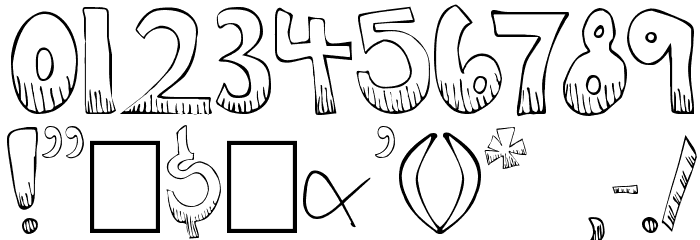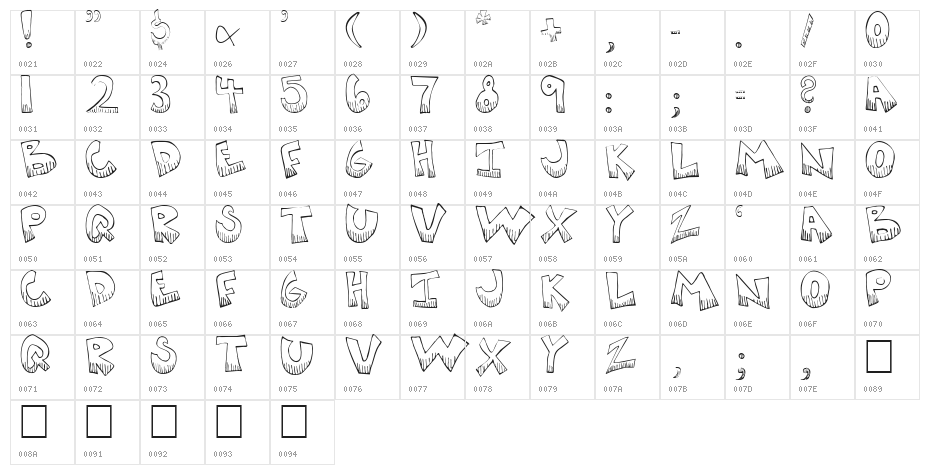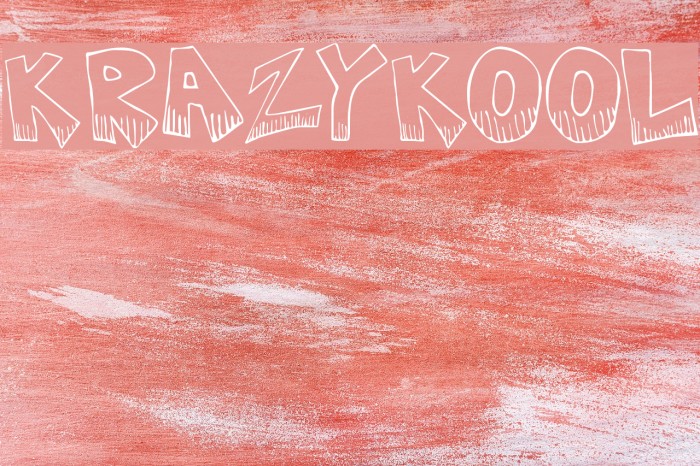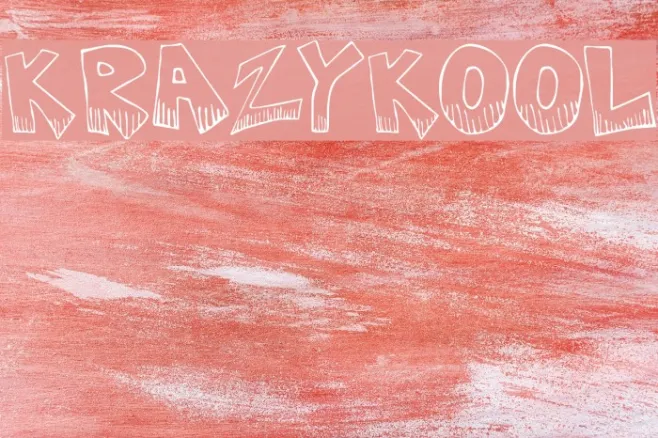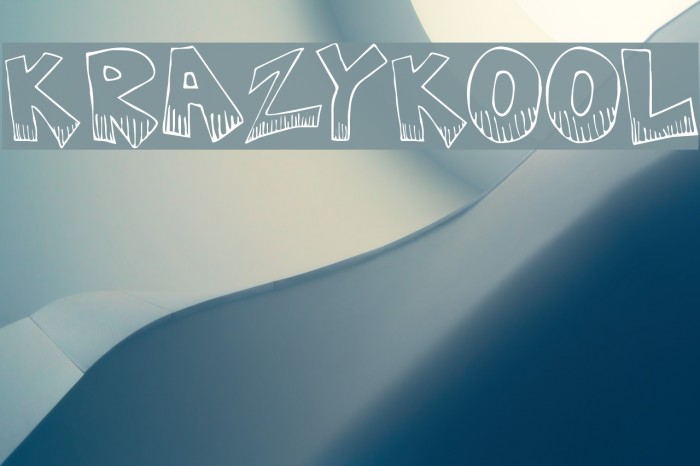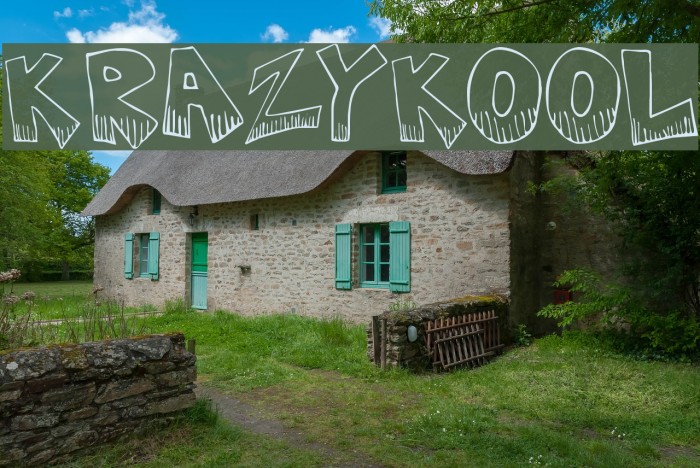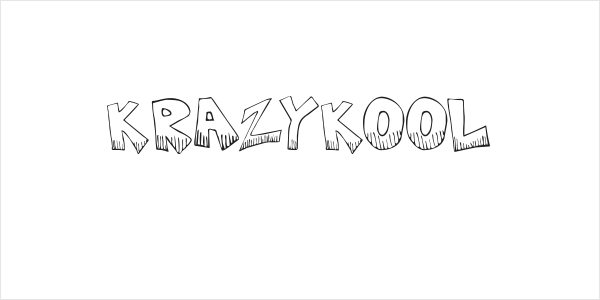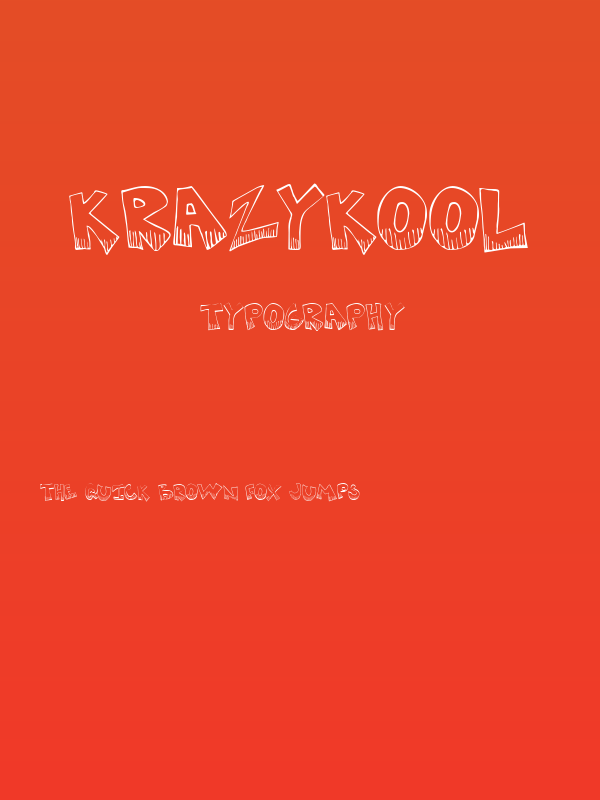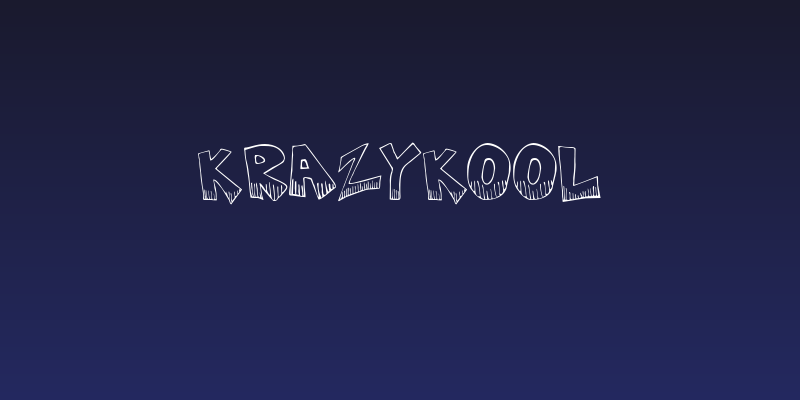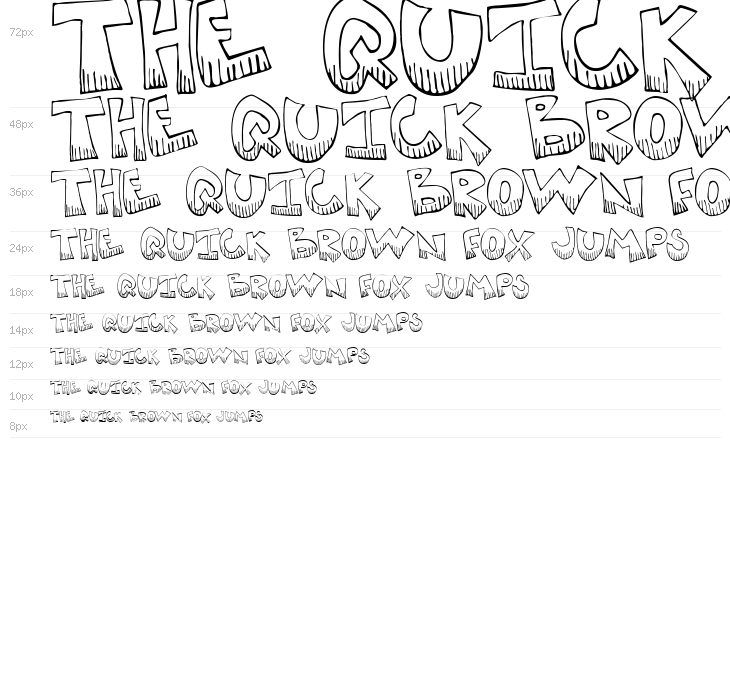
KrazyKool Font
KrazyKool Description
This playful and whimsical font features bold, exaggerated strokes with a hand-drawn, cartoonish style. The letters have a dynamic, energetic feel, with uneven lines and a slight tilt that adds to their quirky charm. The font includes both uppercase and lowercase letters, numbers, and a selection of special characters. The design is characterized by its thick, outlined letters with a shadow effect, giving it a three-dimensional appearance. This font is perfect for projects that require a fun and informal touch, such as children's books, comic strips, or playful branding.
| Overall Style | Whimsical, Playful |
| Proposed Projects | Ideal for children's books, comic strips, playful branding, and informal invitations. |